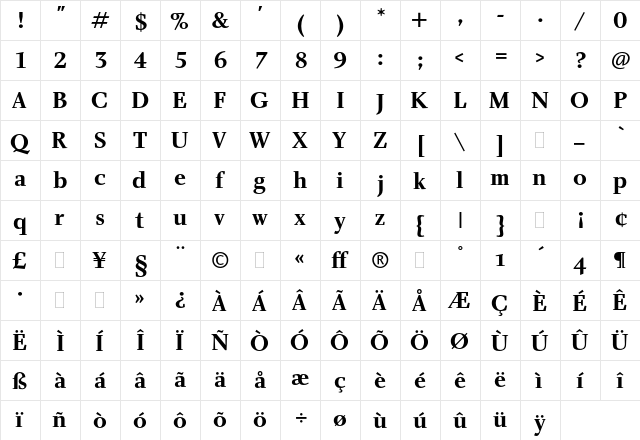
Charlotte Bold Plain
Design Context for Charlotte Bold Typeface
Charlotte Bold takes a measured approach to typography — its balanced proportions and neutral character make it a reliable workhorse for both digital and print work. The heavy weight commands attention and anchors typographic hierarchies.